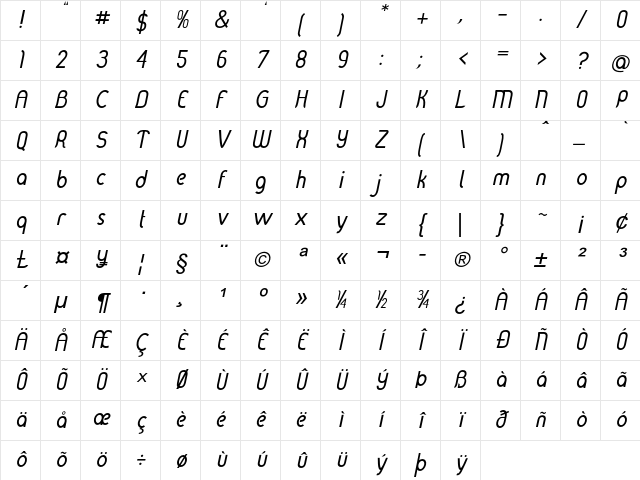
Menobo Italic Free Font
Menobo Italic
Complete Menobo Italic glyph index. Displaying only characters natively supported by Menobo Italic font.
Design Context for Menobo
Menobo is a composed and adaptable typeface that performs quietly and consistently across a wide range of design contexts. The slanted form adds forward momentum and visual energy.
Pro Tip: Use Menobo for emphasis, pull quotes, and subheadings where its slanted energy can add rhythm to the layout.